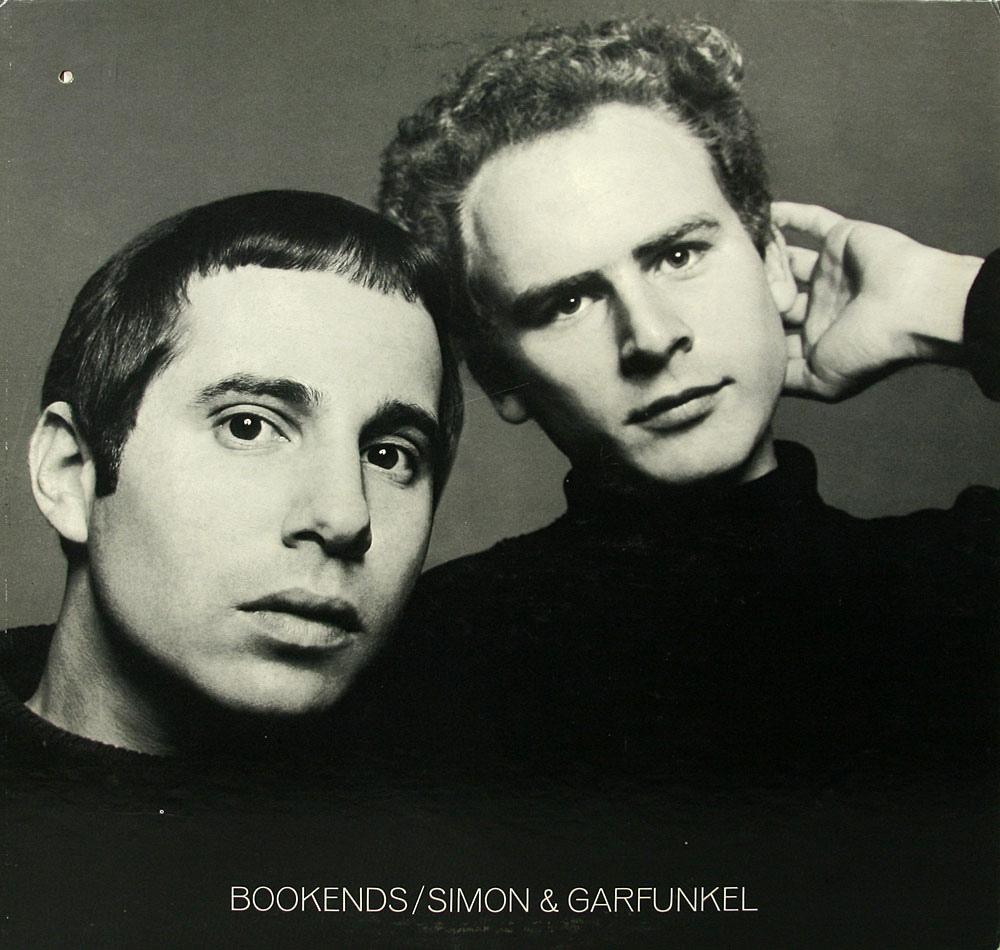
Venus and Its Commercial Use
Can you clarify “notorious” in this context?
Notorious: I mean famous because used by a brand and a corporate.
I finally found some examples. It was popular in the Hollywood of the Sixties and you could notice it on both cinema and television.
¶ The end titles for the CBS logo were set in Venus.
¶ The ABC series The Time Tunnel (1966) had its production credits with it.
¶ Some western films like Monte Hellman's 1966 The Shooting and Ride in the Whirlwind.